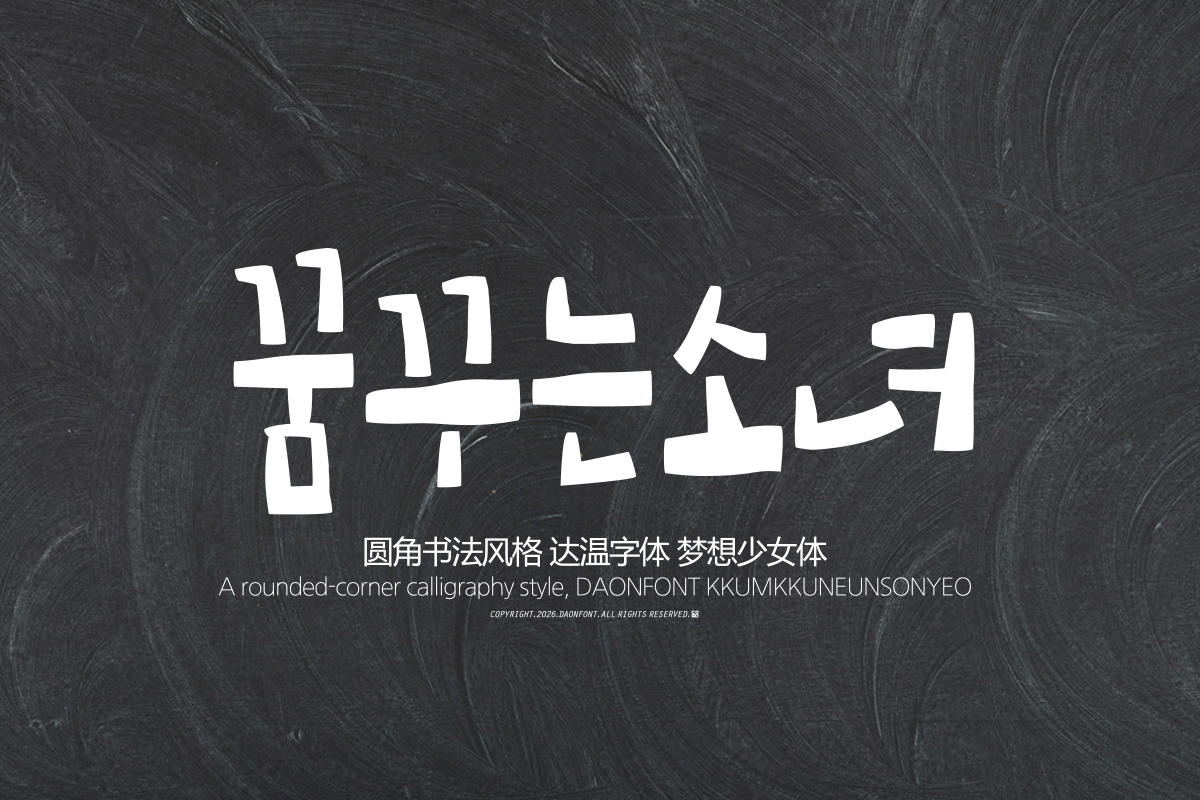
DAON KKUMKKUNEUNSONYEO(B)
'KKUMKKUNEUNSONYEO' is a calligraphy-style Korean font derived from pure and free imagination. In particular, it can express natural and bright messages in book titles, posters, card news, social media content, children's content, video subtitles, and more.